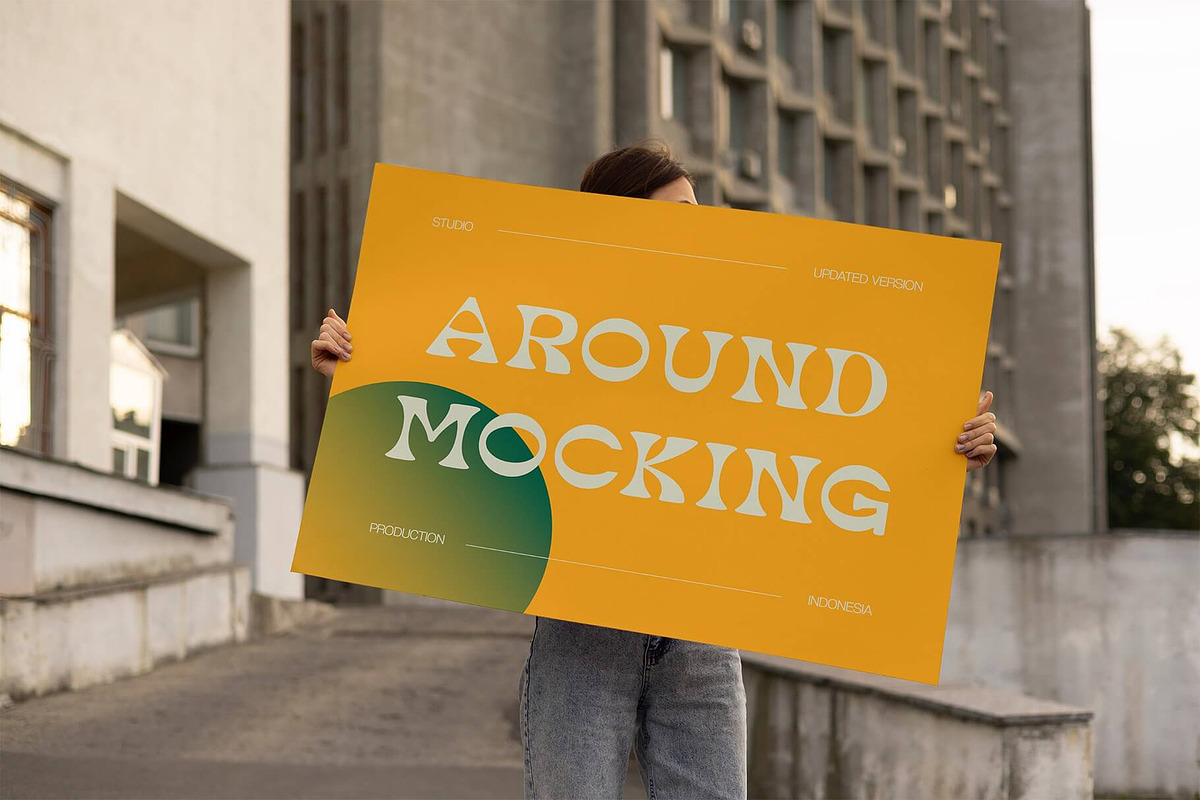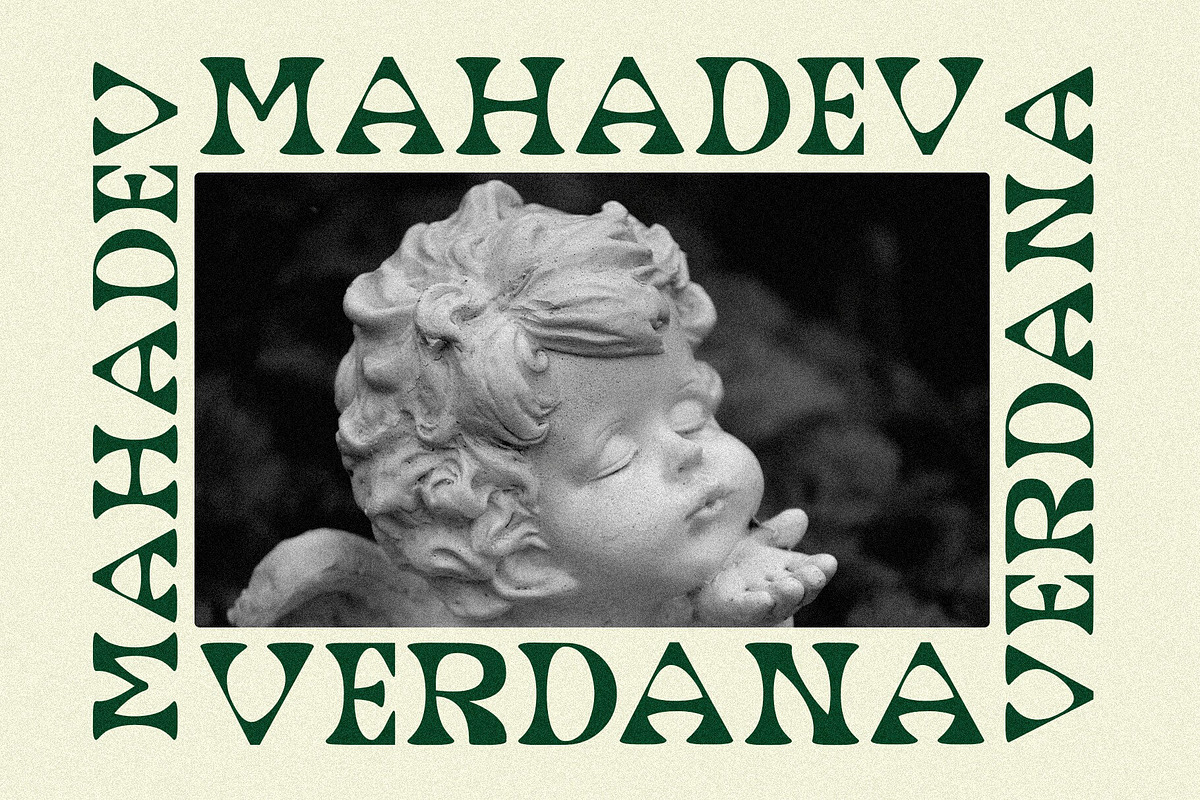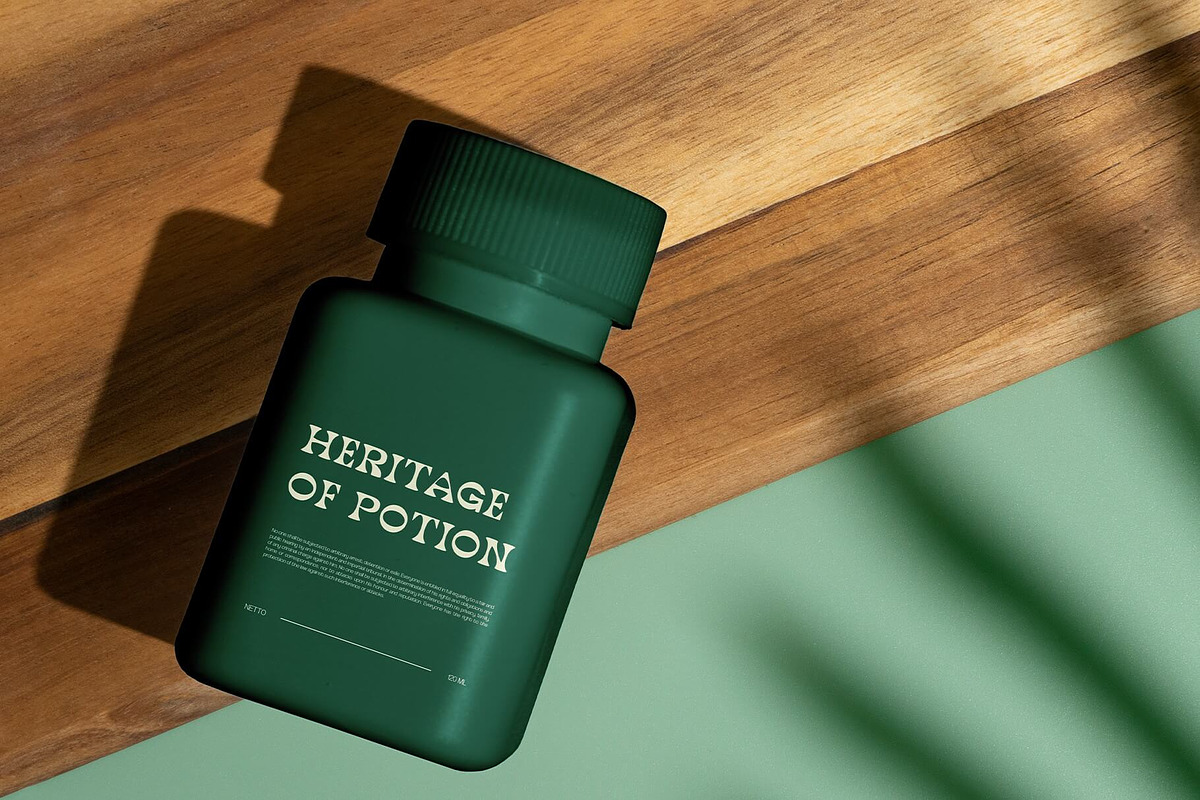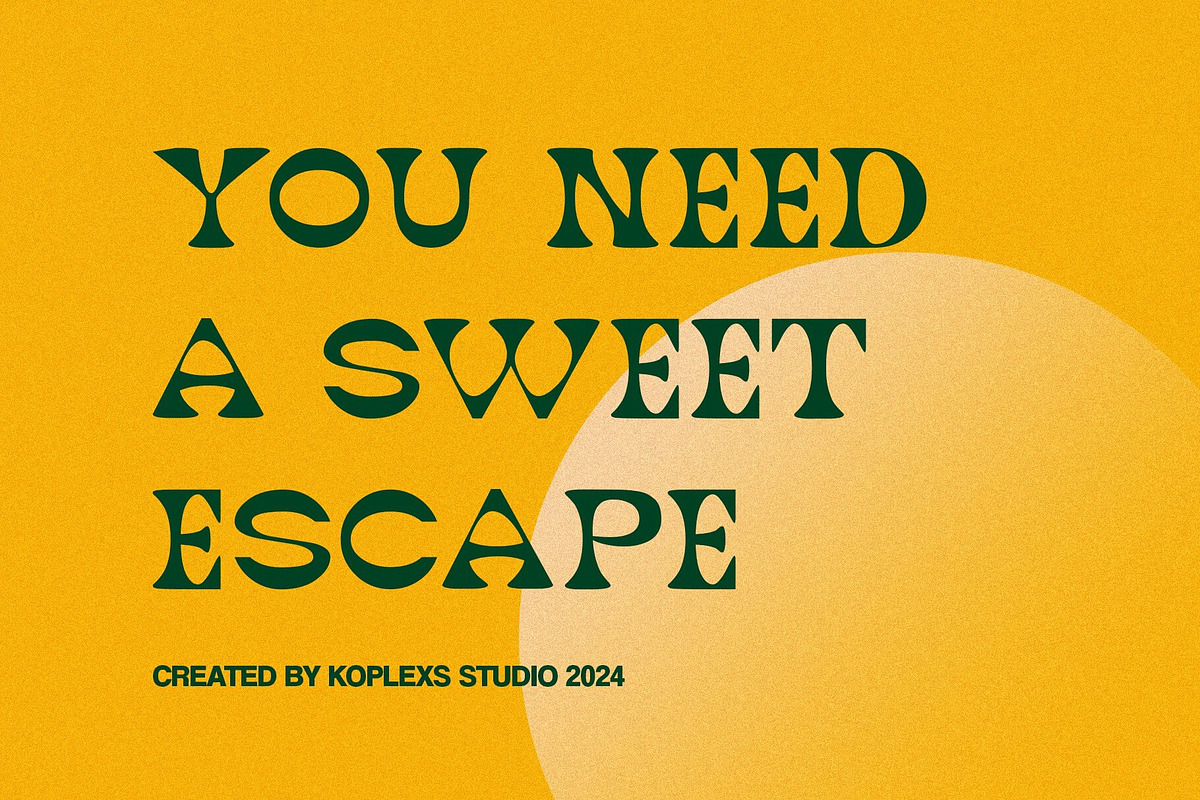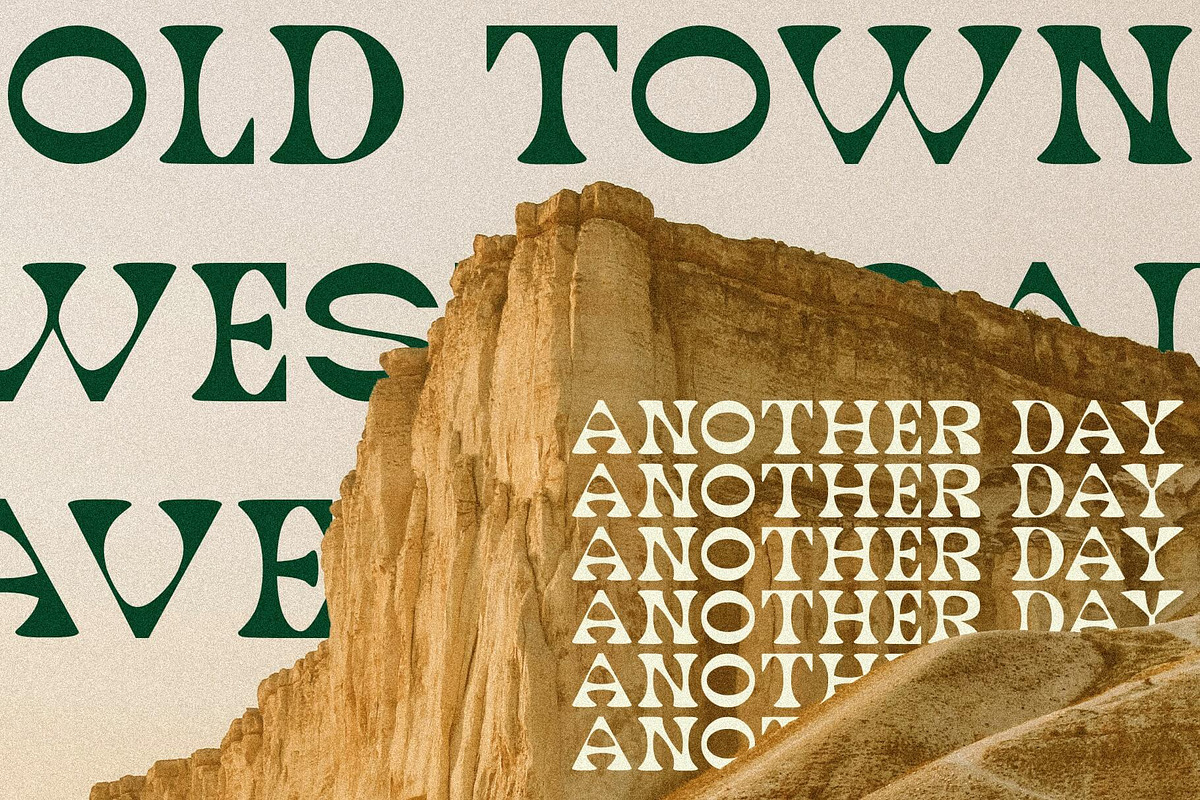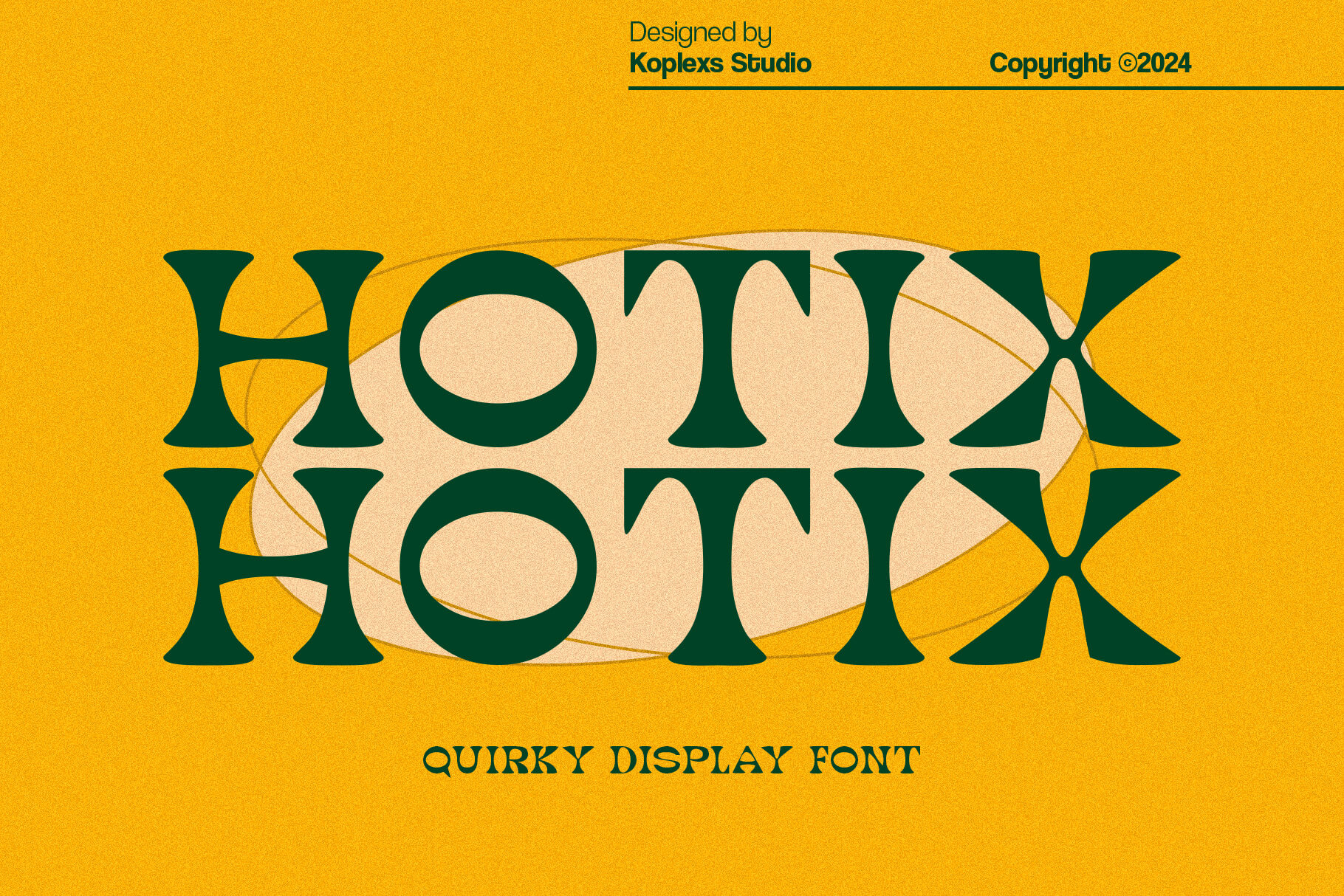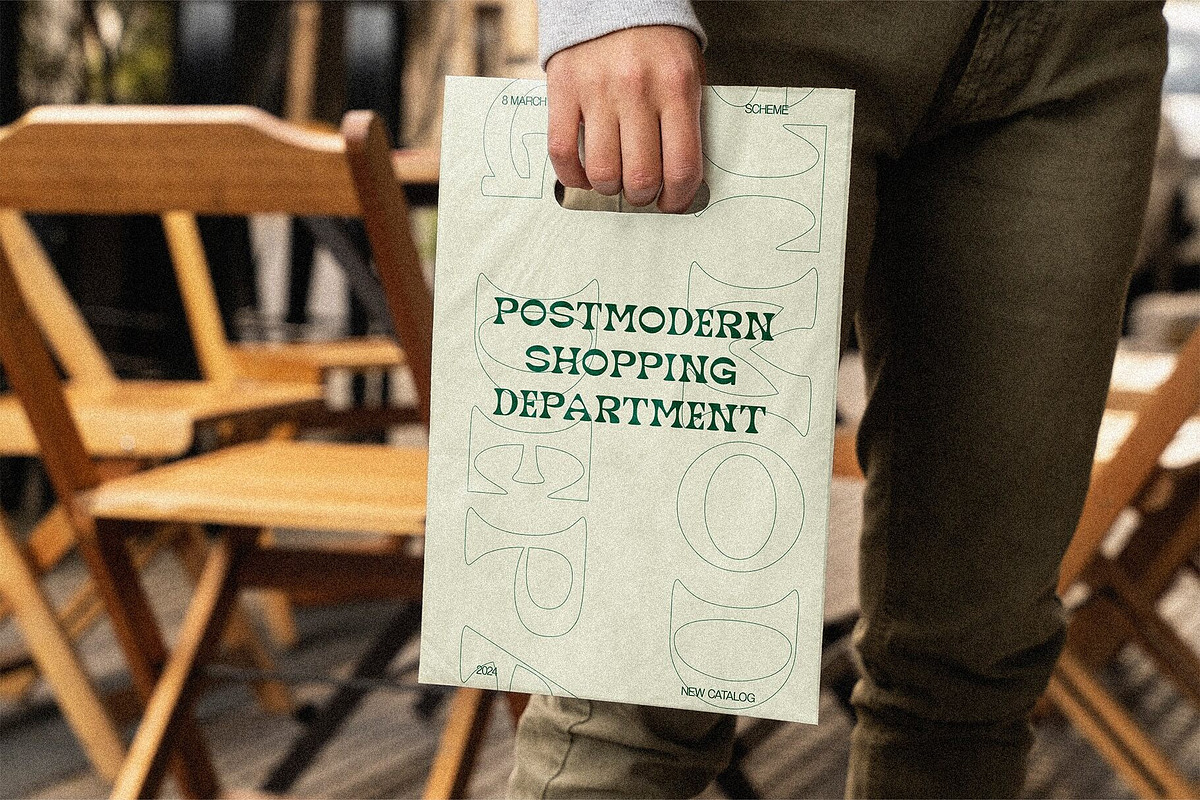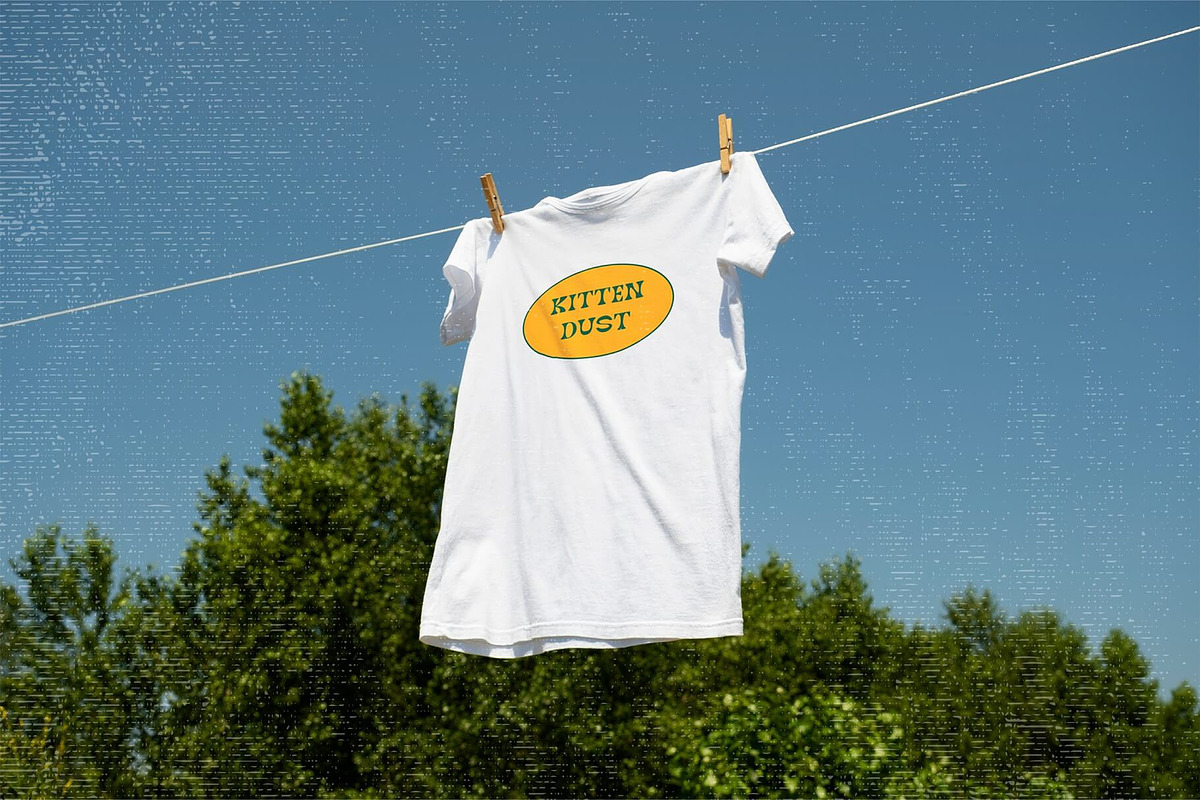
Hotix - Quirky Display Font
Hotix – Quirky Display Font
Hotix is a unique and characterful display font designed to bring an eccentric and fresh touch to all your design projects. With dynamic curves and style, Hotix is suitable for a variety of uses, from posters, headlines, logos, covers, and packaging to branding and social media. This font combines retro and modern elements, creating a perfect balance between nostalgia and innovation. Each letter in Hotix is meticulously crafted to ensure good readability without sacrificing its uniqueness. Use Hotix to make your designs stand out and leave an unforgettable impression.